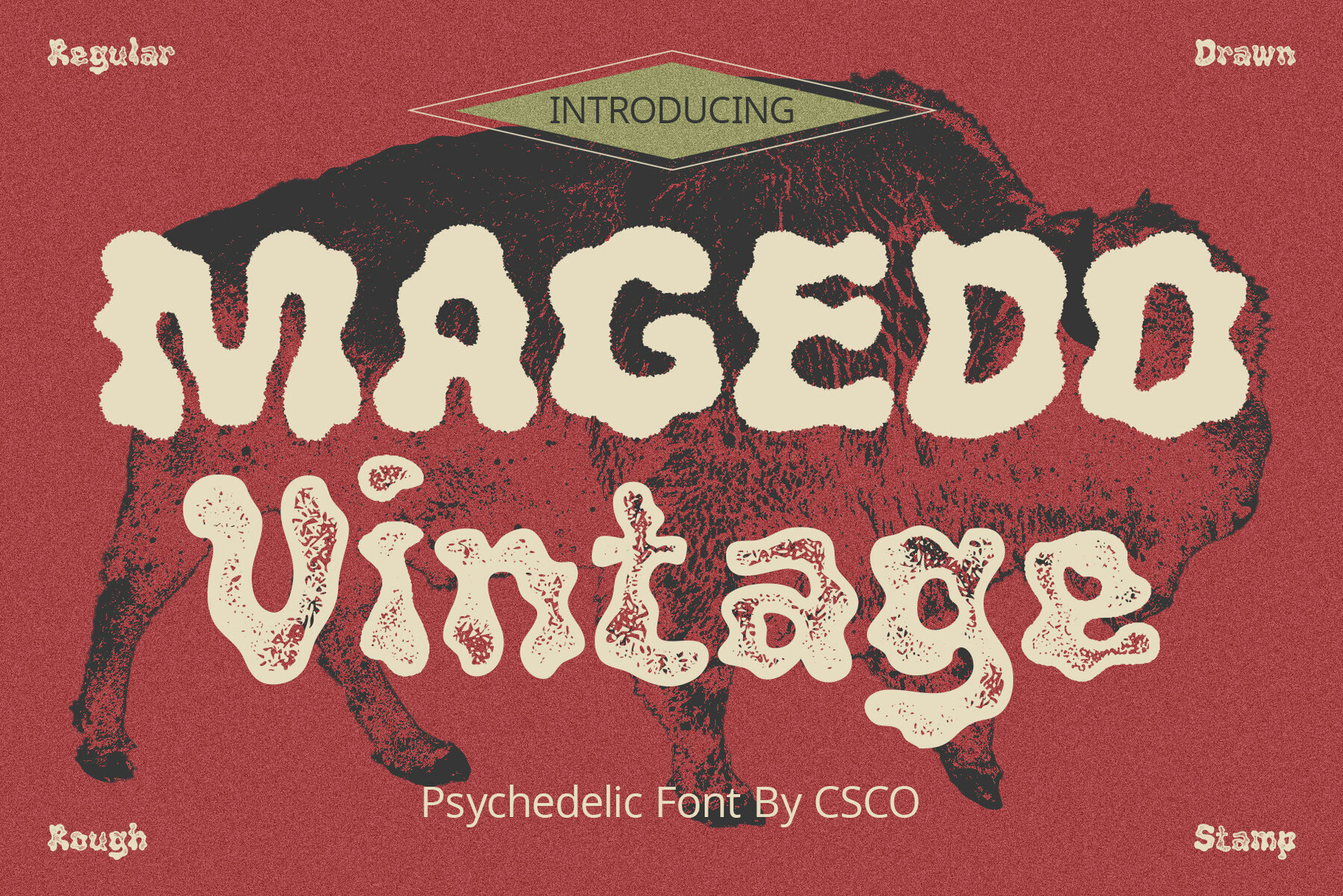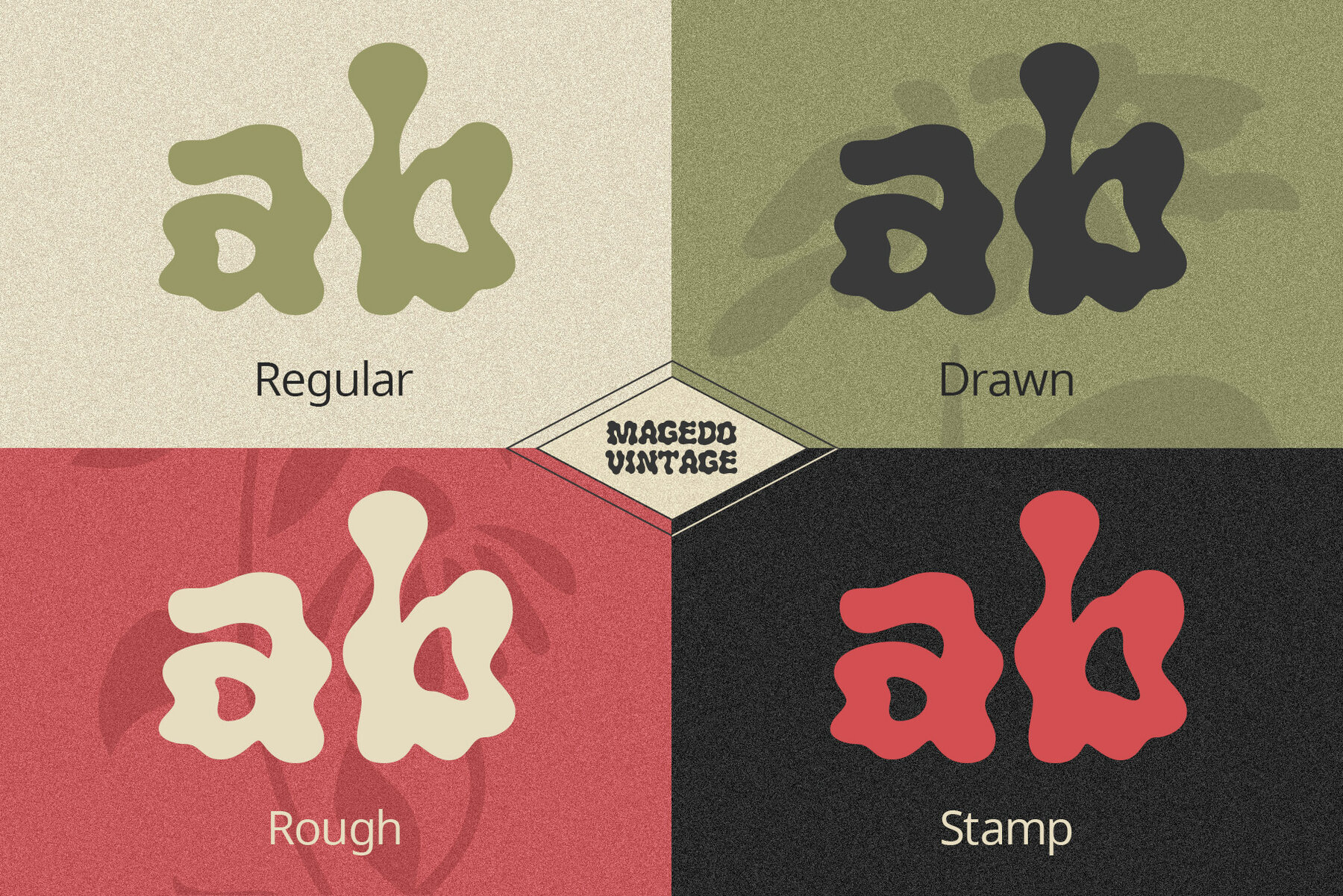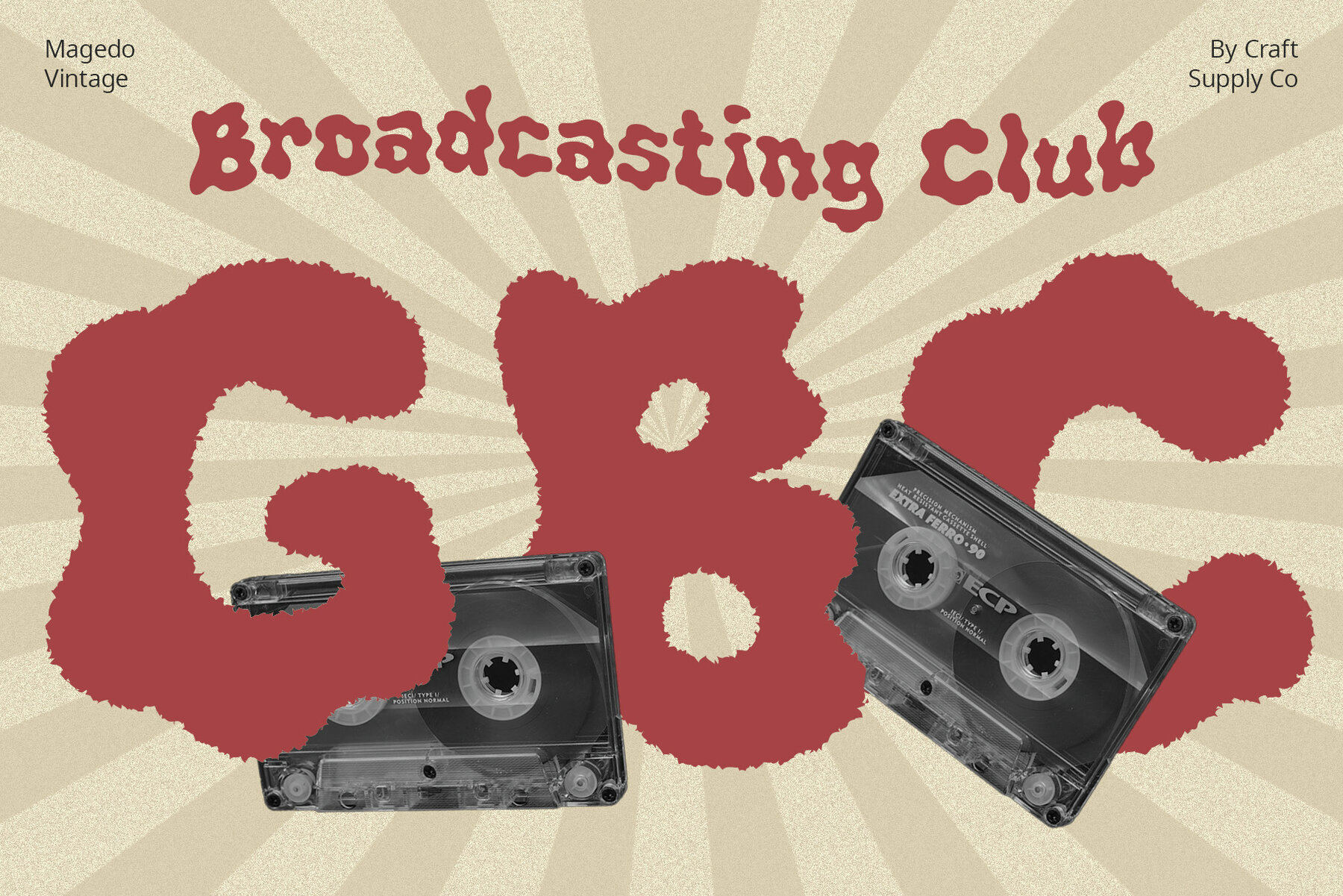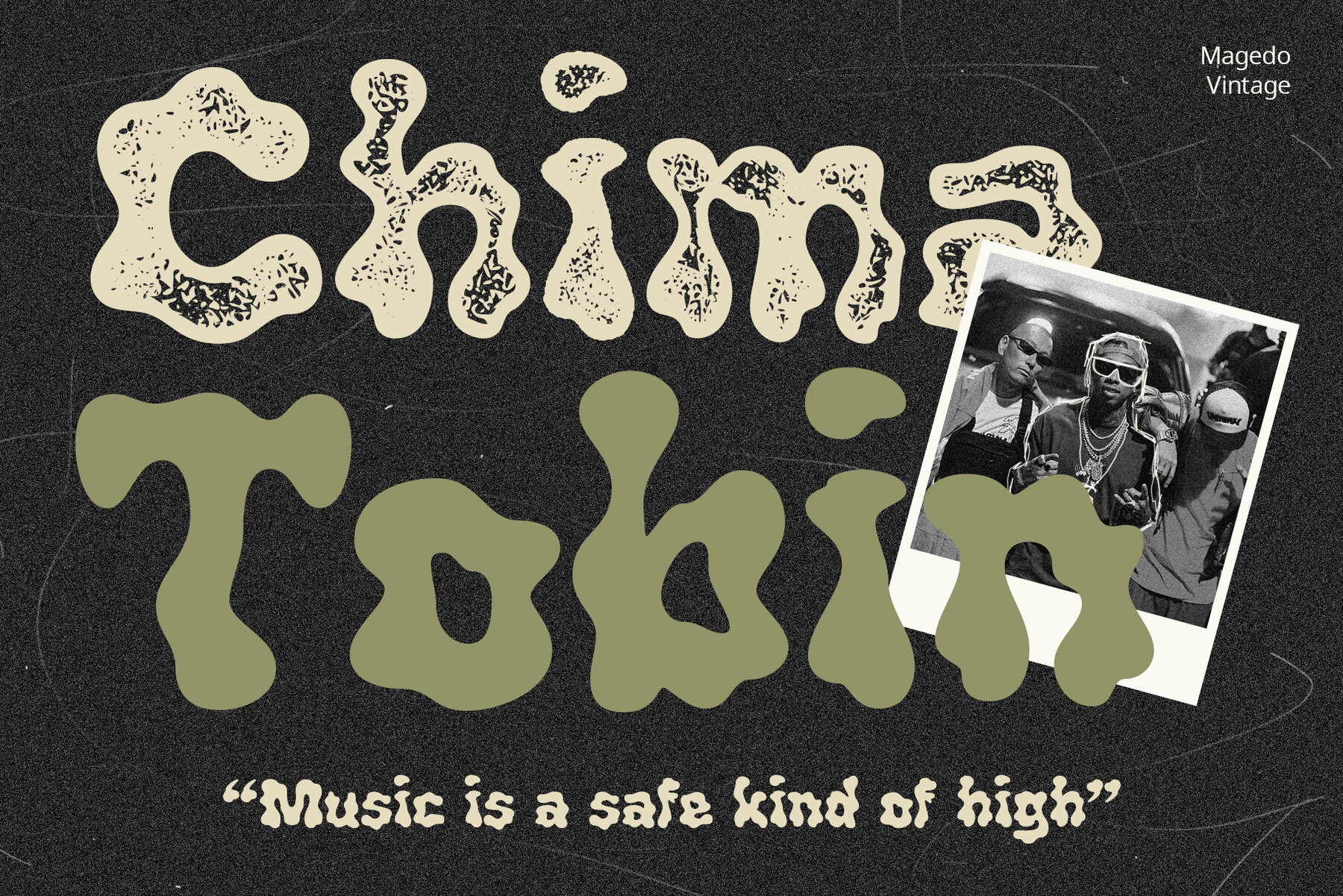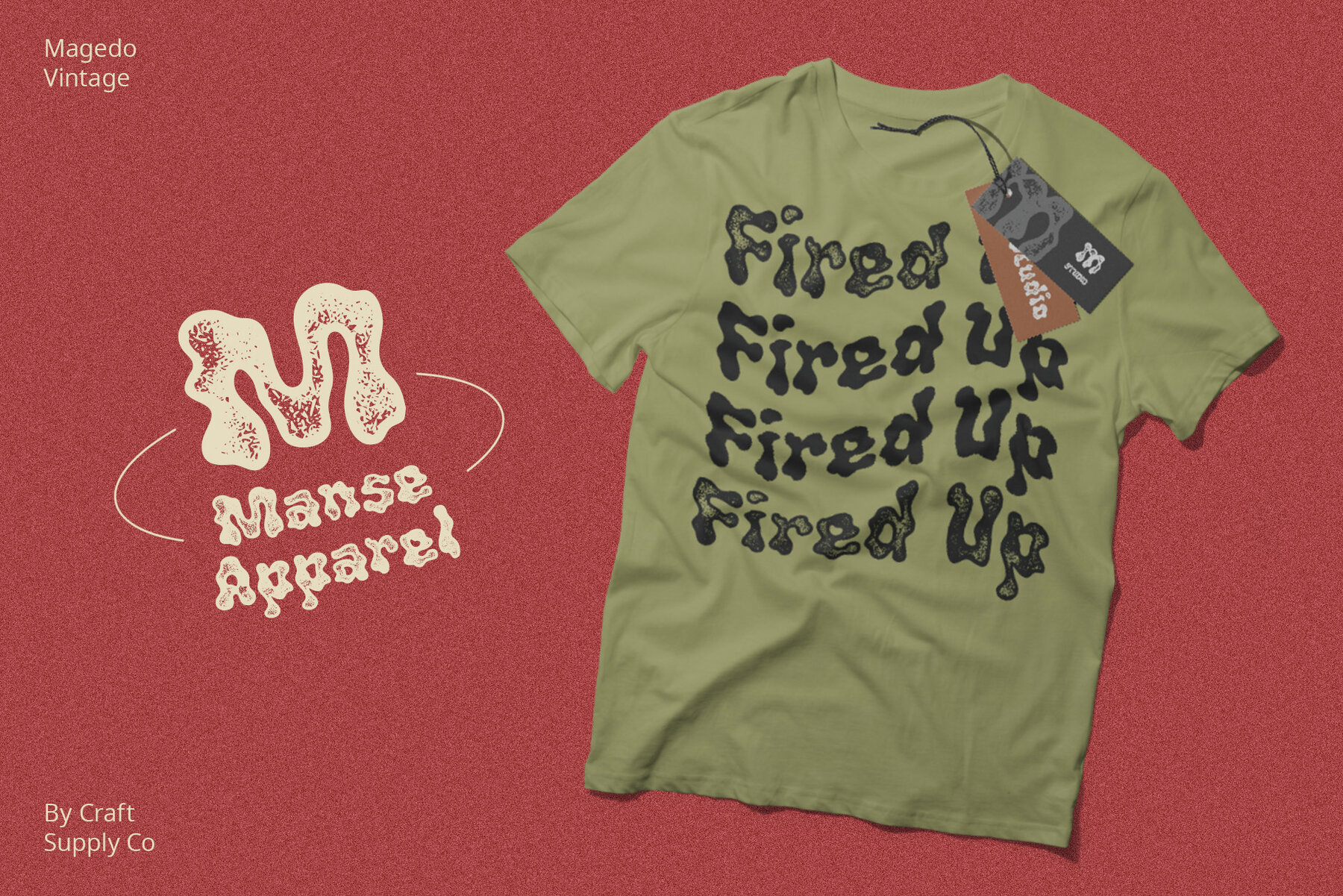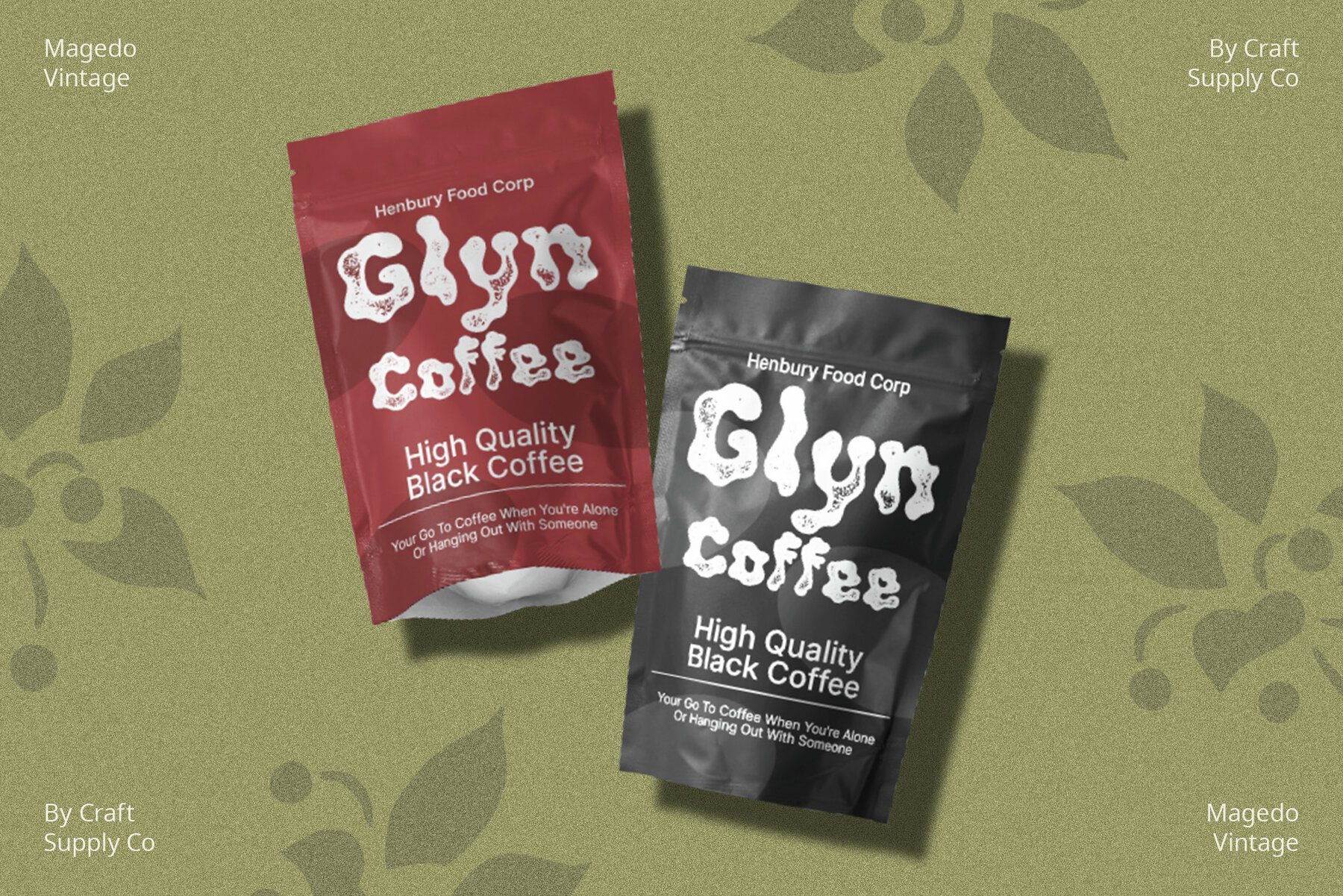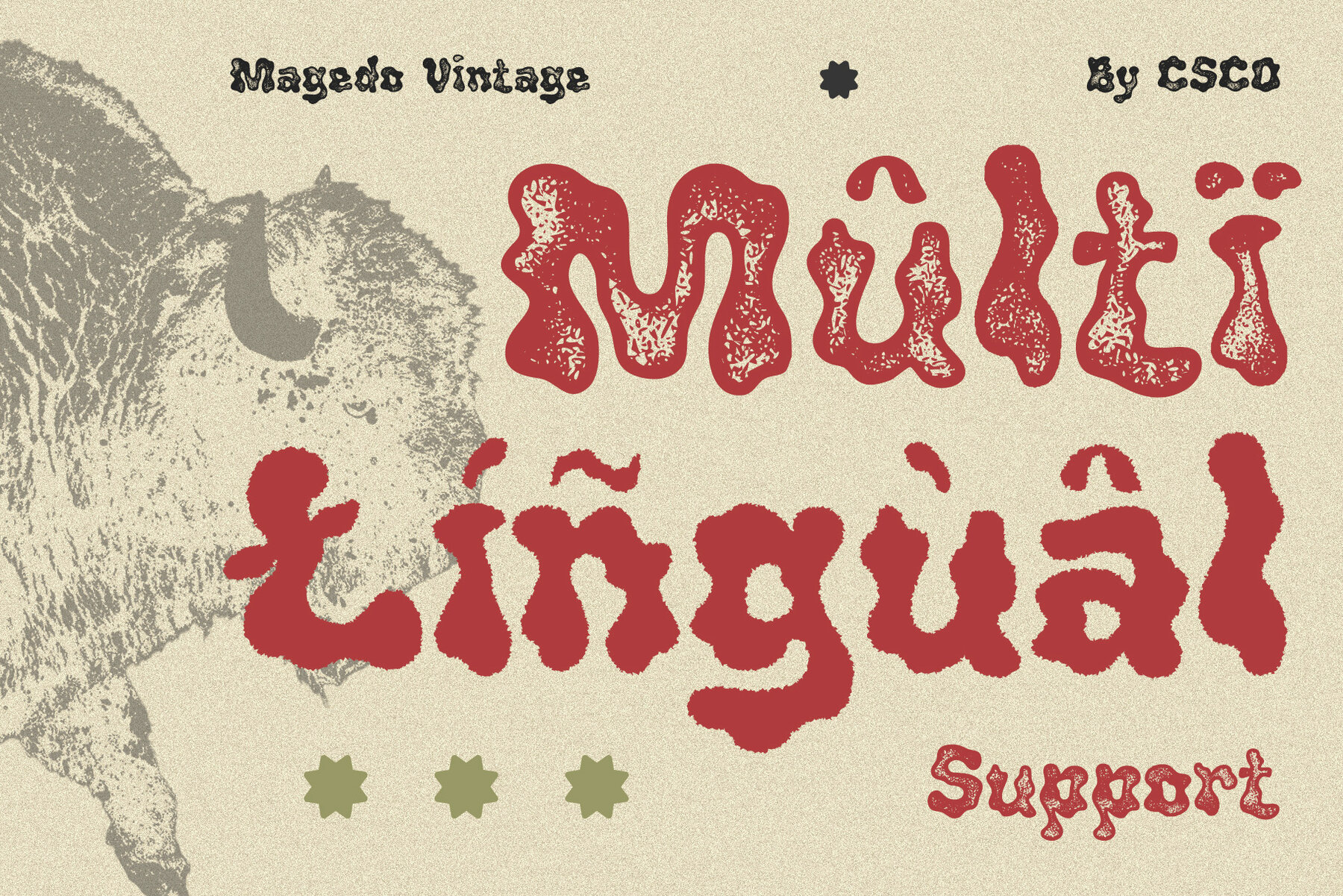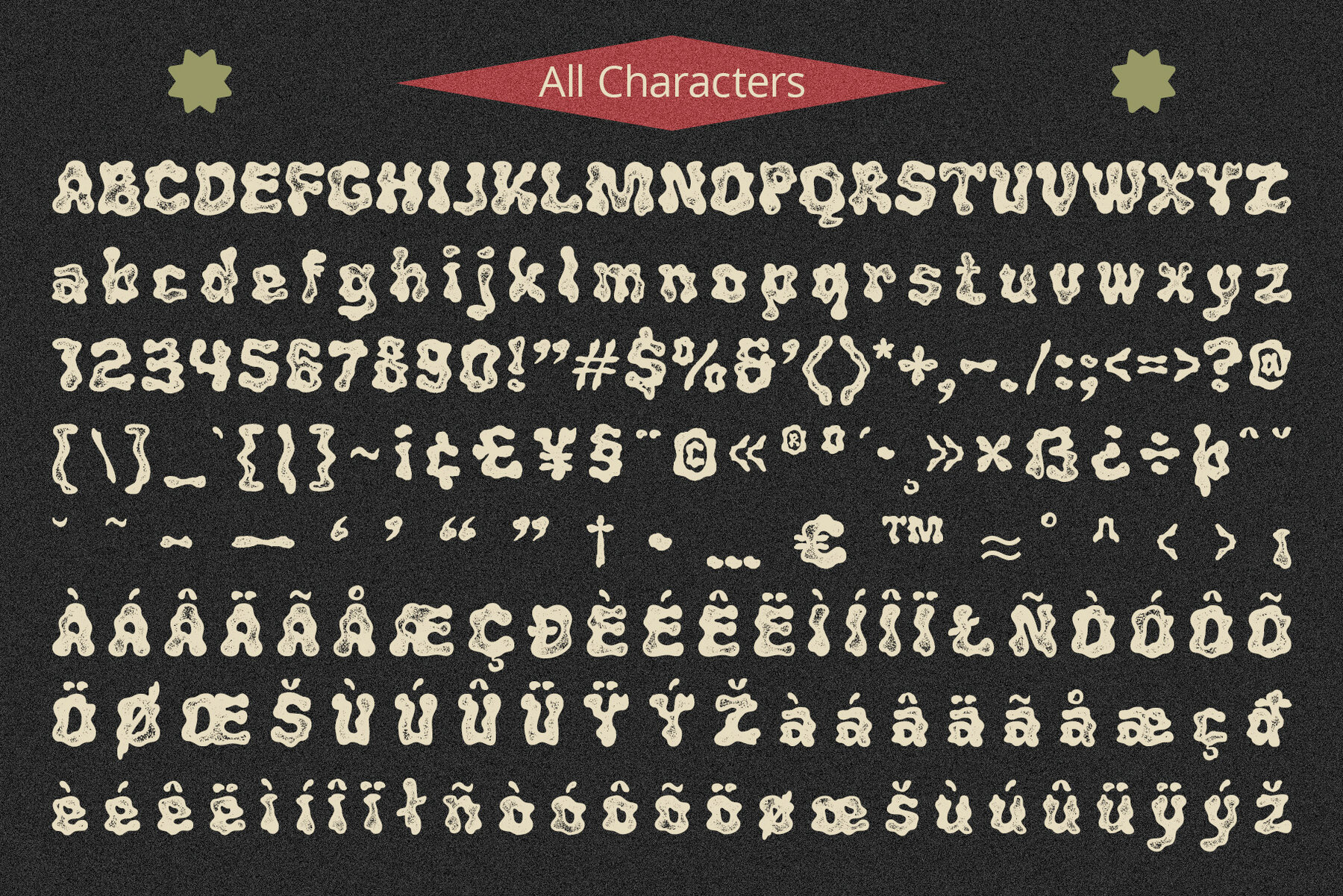
Magedo Vintage Font
Looking for a font that’s both fluid and exudes vintage charm? Look no further than Magedo Vintage – Fluid Font. This versatile typeface offers a blend of modern fluidity and classic vintage aesthetics display that will elevate your designs to the next level. Magedo Vintage boasts a fluidity that adds a touch of sophistication to your projects. Its smooth curves and flowing lines make it perfect for logos, headings, and invitations, creating a sense of dynamic movement that captures attention. Embrace the hand-drawn trend with Magedo Vintage. Its rustic, imperfect strokes give your text a unique character and a cozy, artisanal feel. Whether you’re designing a rustic wedding invitation or a quaint cafe menu, this font adds that charming touch. Magedo Vintage also offers a stamp-like effect, reminiscent of classic imprints. This effect adds a sense of authenticity and nostalgia to your designs, making it ideal for vintage-themed posters, packaging, and labels.Introducing Magedo Vintage – Fluid Font
Fluid Elegance
Rustic Hand-Drawn Appeal
Timeless Stamp Effect